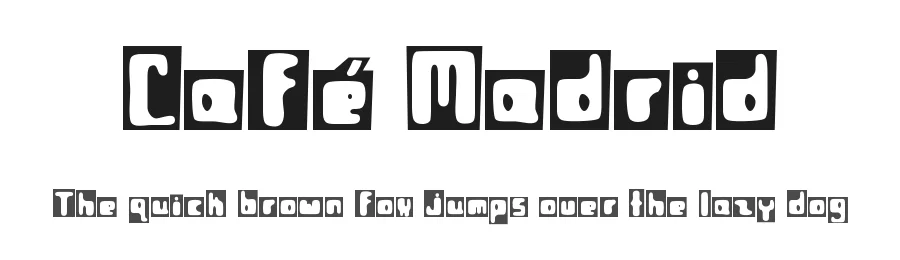
About Blocking Font
Blocking is a decorative font designed by David Koffe. It includes 70 glyphs, a regular weight, TTF (TrueType) format, and 98 languages. Blocking is free to download; check the license details on this page before commercial use. Decorative fonts like Blocking work best for logos, posters, packaging, and standout headlines.
Blocking Font is a decorative font that shines as a display or heading face. Pair it with a clean sans-serif or serif font for body text β the contrast creates a clear hierarchy while the two styles stay balanced and easy to read.
Blocking Font
by David Koffe
Blocking Font is a decorative typeface by David Koffe, ideal for logos, invitations, branding, and creative projects.